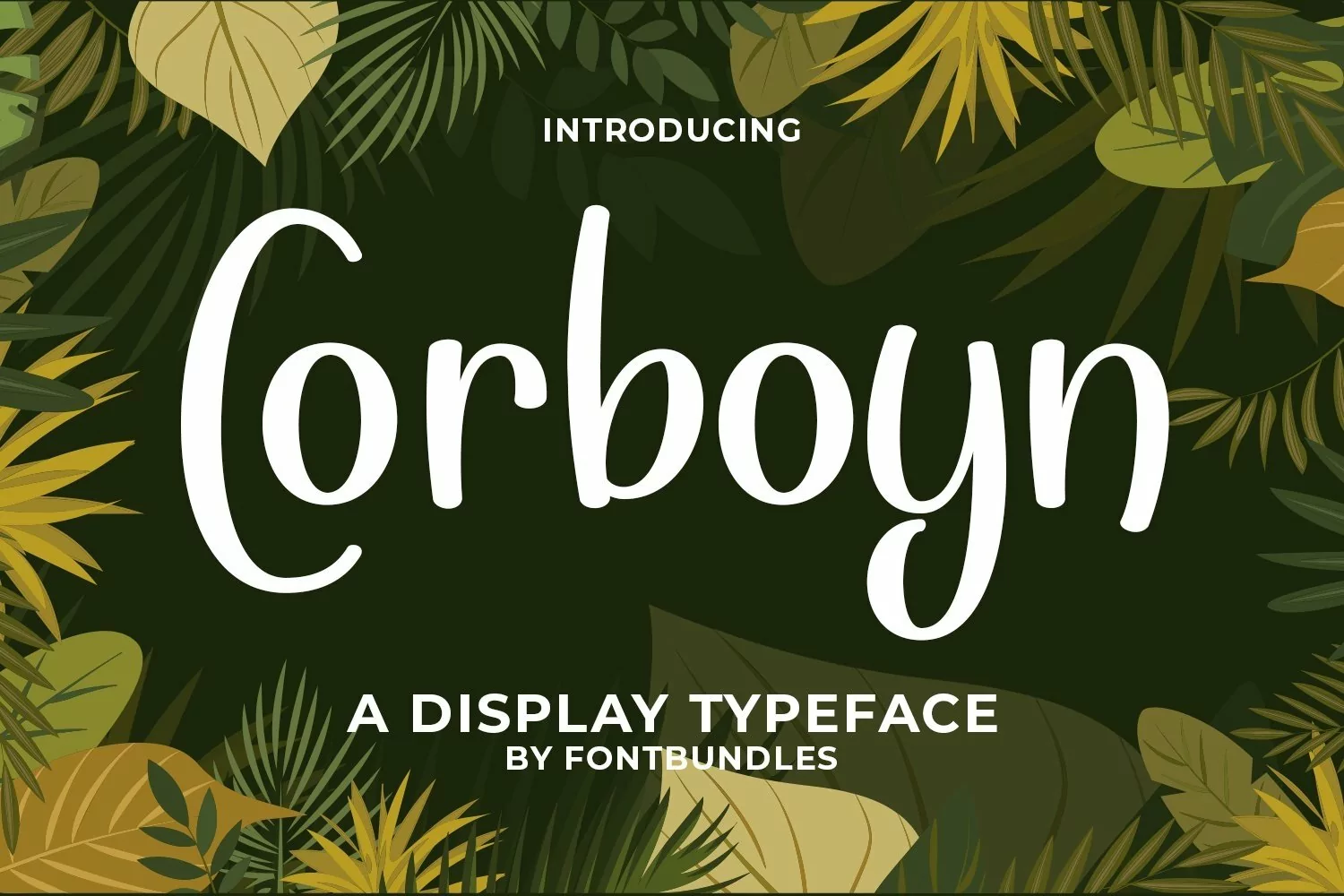
Web Font Corboyn
Corboyn is a display typeface. Perfect for display, quotes, poster, headline, tittle, merchandise, logo, logotype, packaging, branding, business card, and many more.